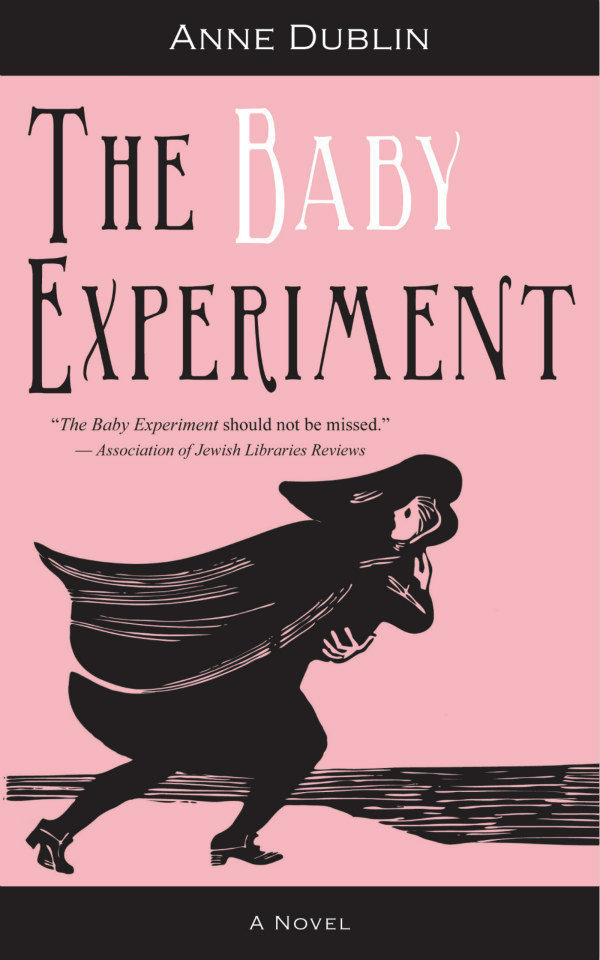
The Baby Experiment Font
BookThe Baby Experiment is a historical fiction novel by the Canadian writer Anne Dublin. In the 18th century Germany, Johanna, a 14-year-old Jewish girl, gets a job as a caregiver in an orphanage where a secret experiment is being carried out that results in the death of babies. After deciding to kidnap one of the orphans, Johanna travels to Amsterdam and faces many dangers along her journey.
Birmingham Elongated is the font used for the book title on the cover. Paul Lloyd created the retro-style typeface family called Birmingham. The typeface is free for both personal and commercial use and comes in seven variations. You can download it for free in the Fonts Used Section. The author's name on the book cover is written in a serif font Copperplate Gothic, created by Frederic W. Goudy around 1900s.